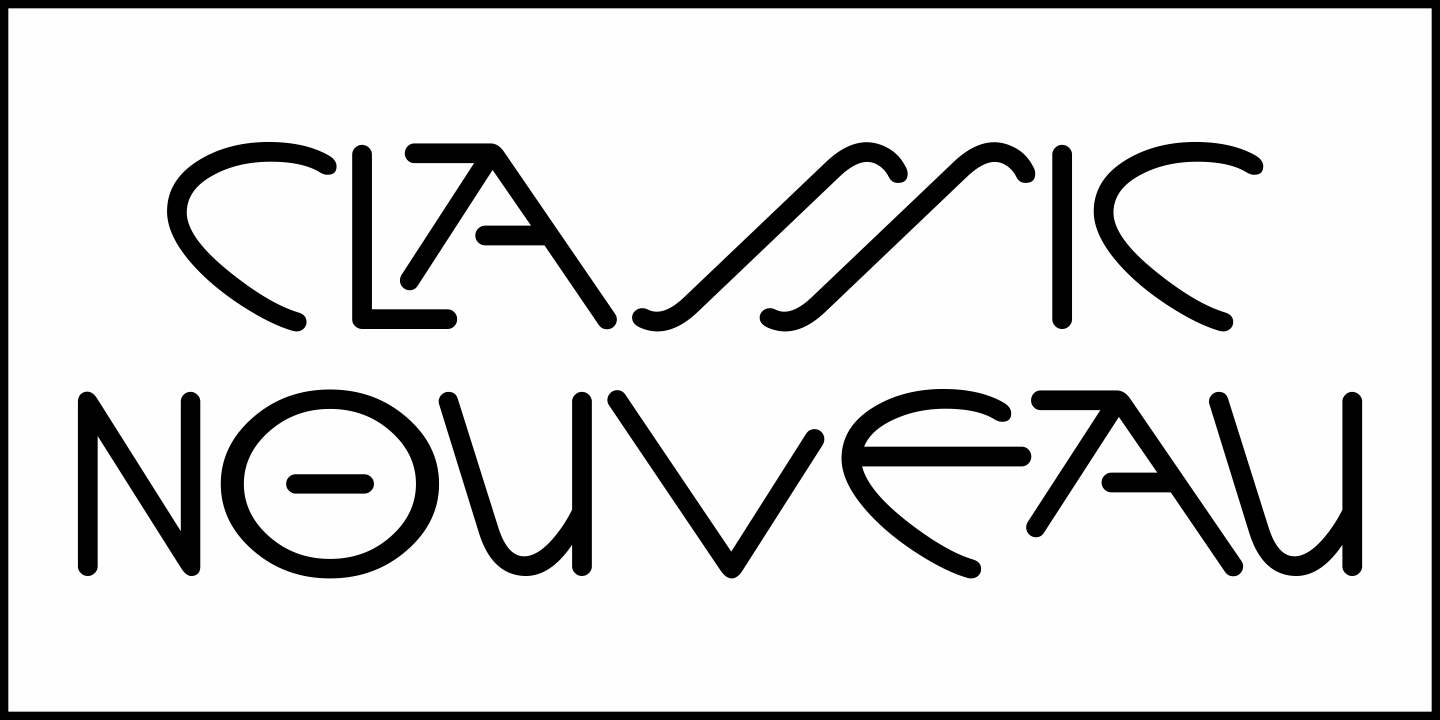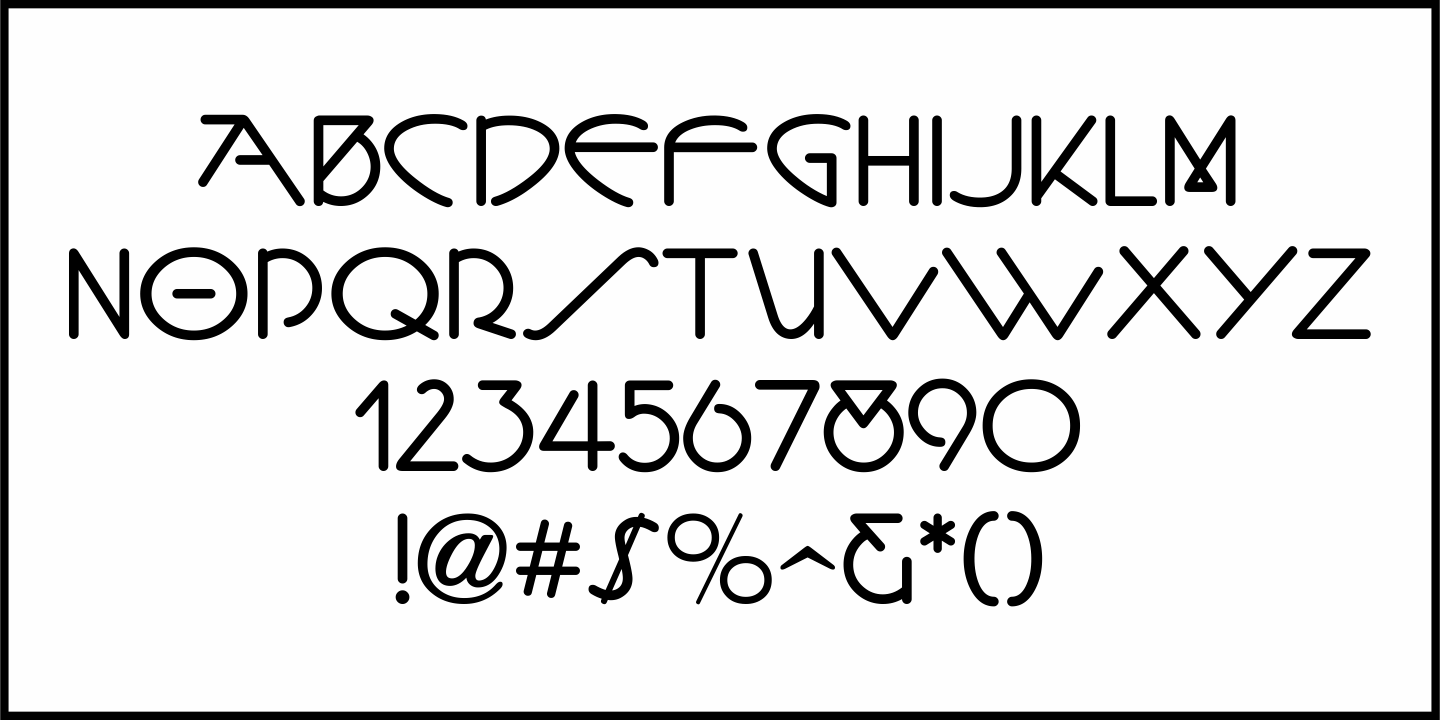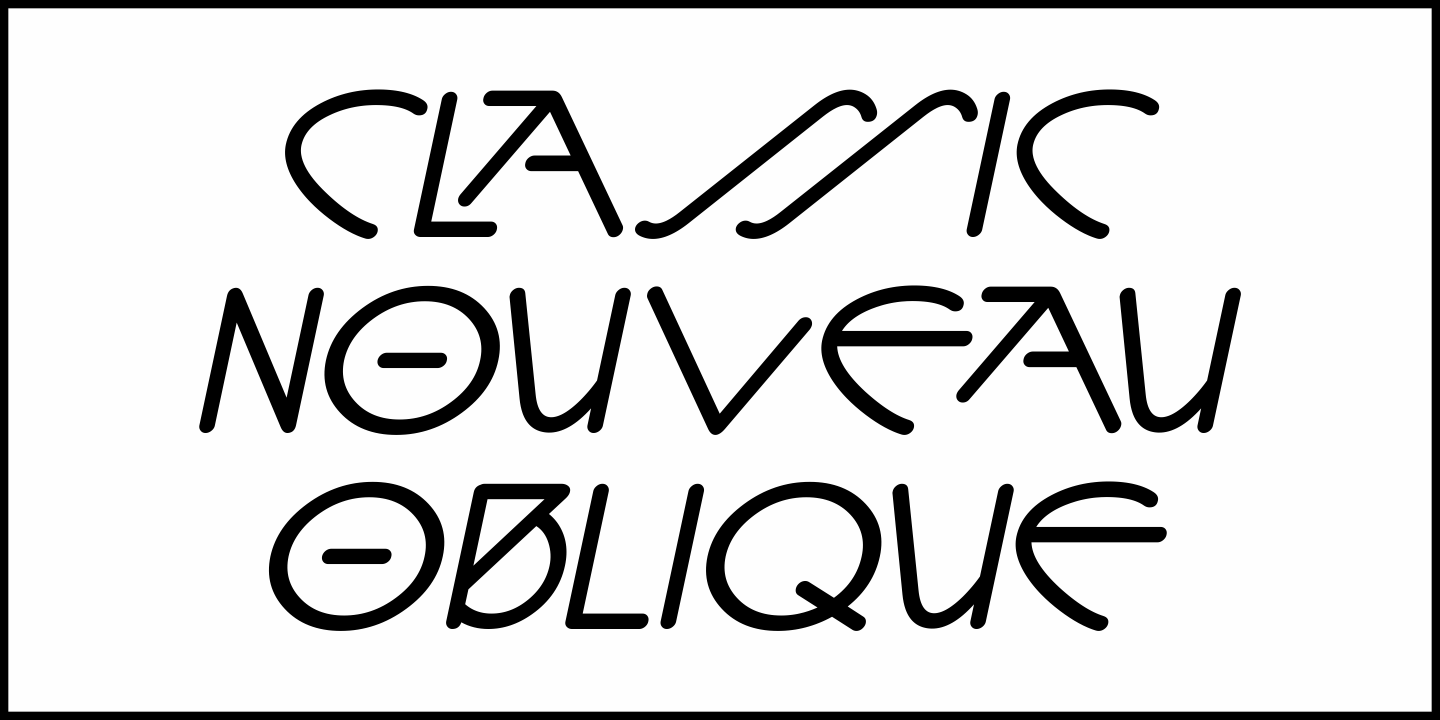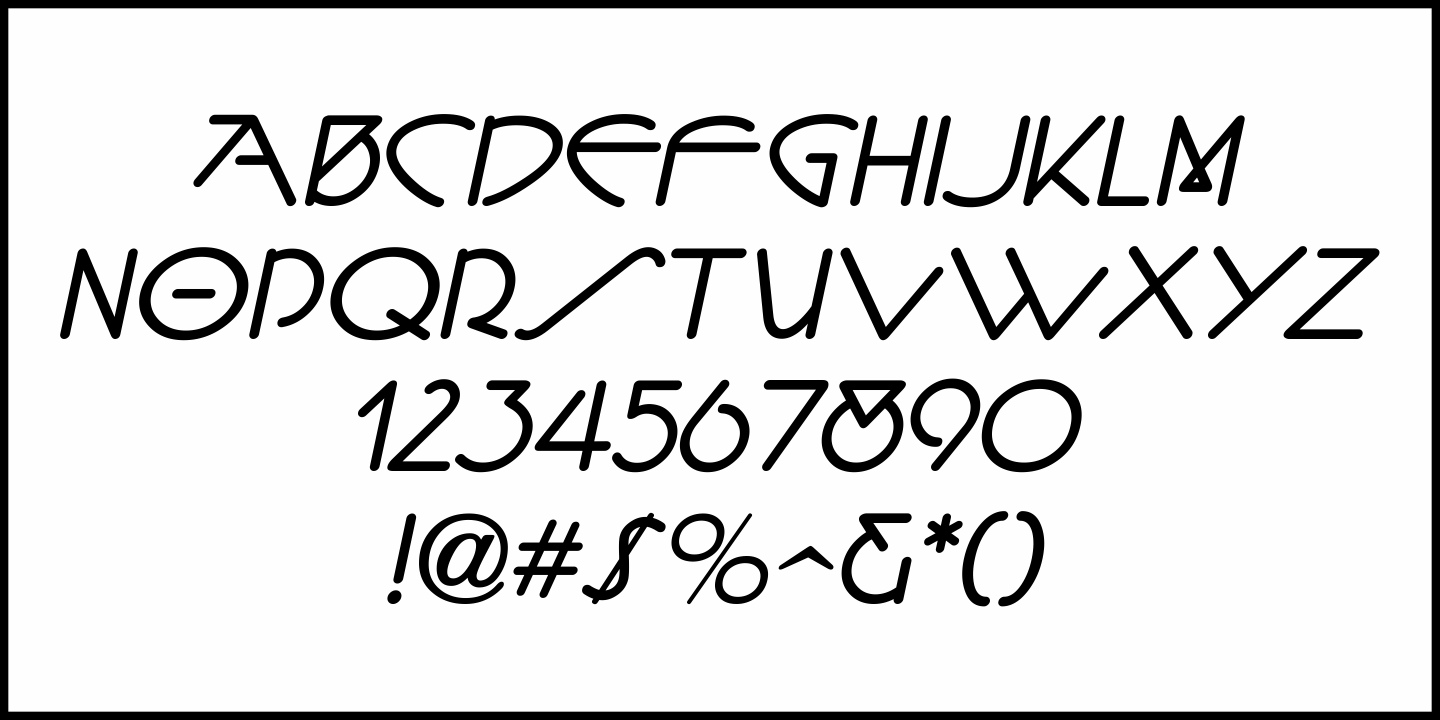
Classic Nouveau
In the July, 1919 issue of Motion Picture Classic, the inner page title block was hand lettered in a stylized Art Nouveau sans serif type design made with a round nib pen.
This decorative alphabet is now available as Classic Nouveau JNL, in both regular and oblique versions.